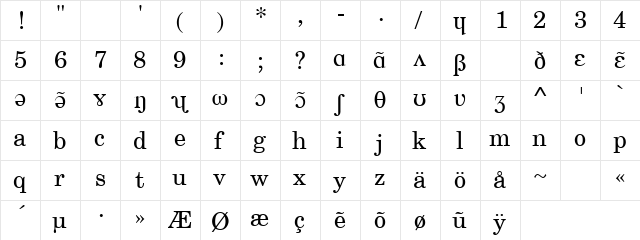
WFon Regular
Design Context for WFon Typeface
WFon is a composed and adaptable typeface that performs quietly and consistently across a wide range of design contexts.